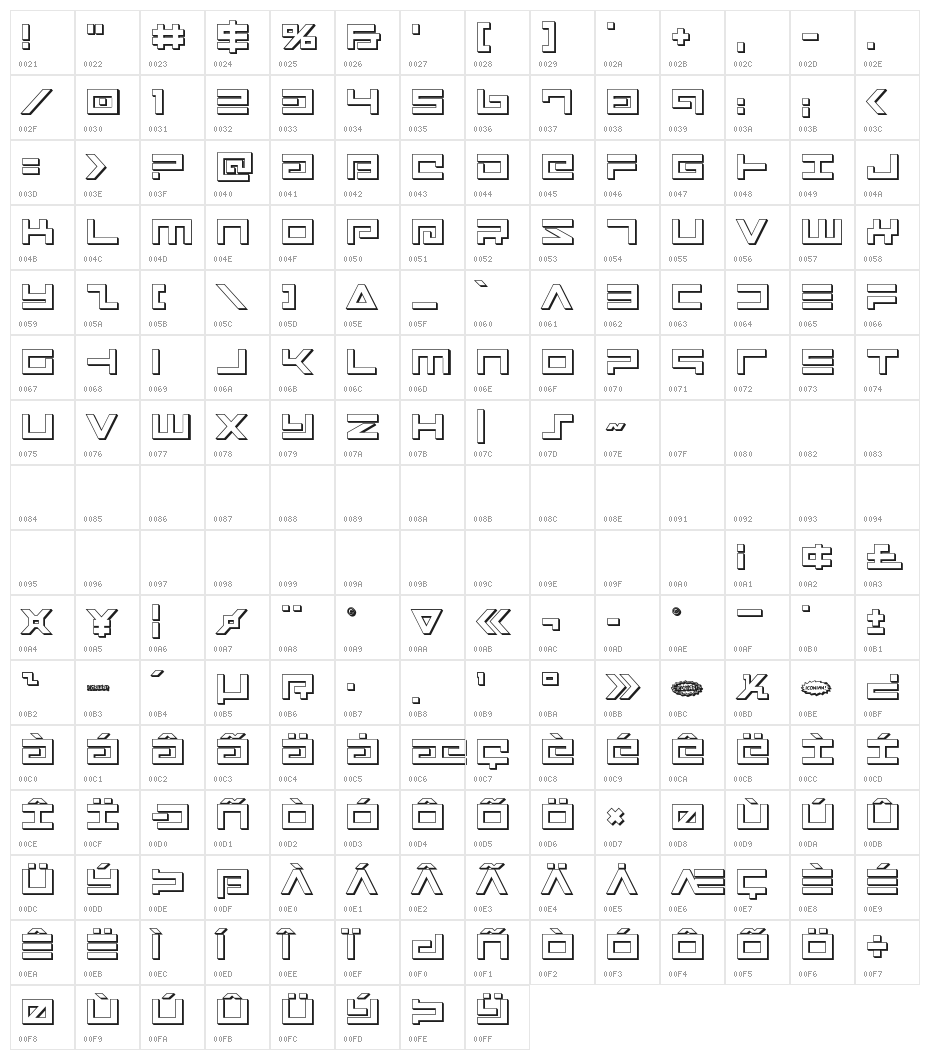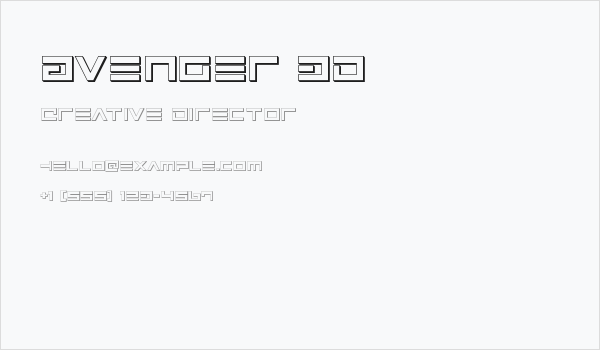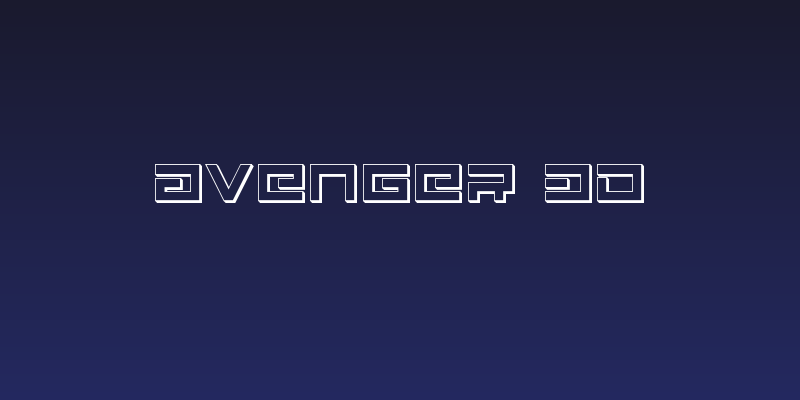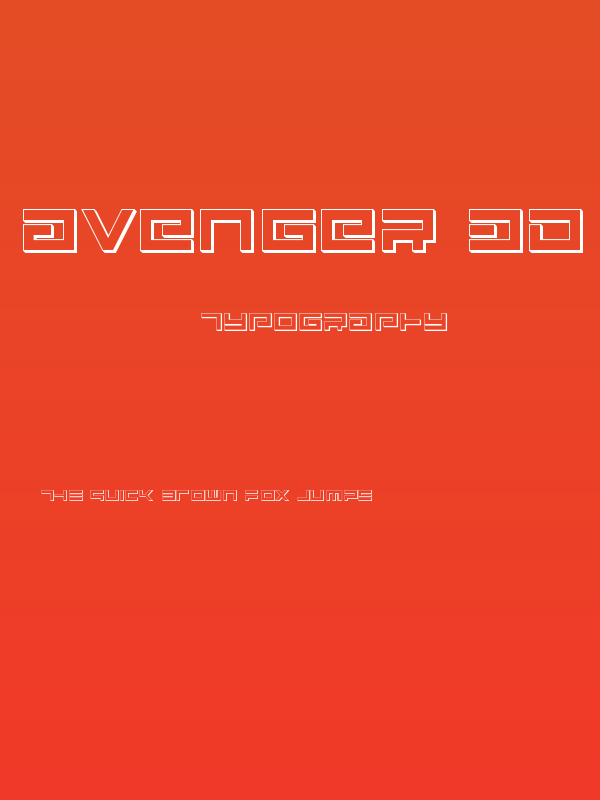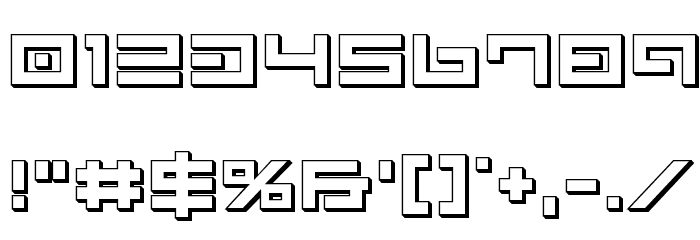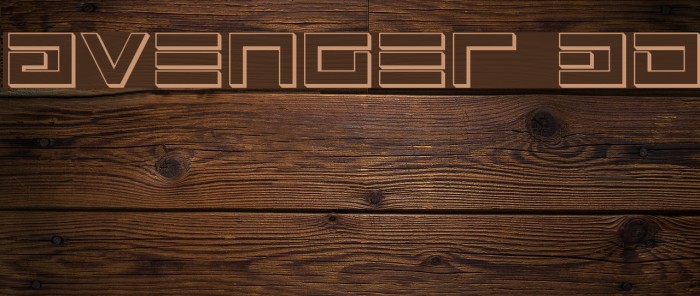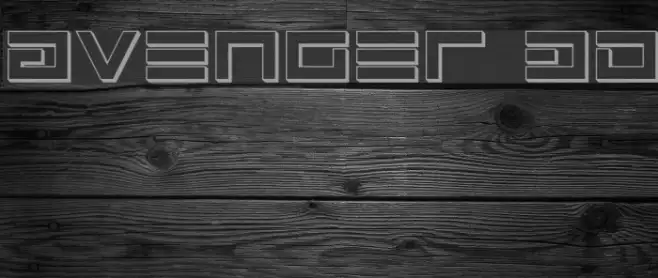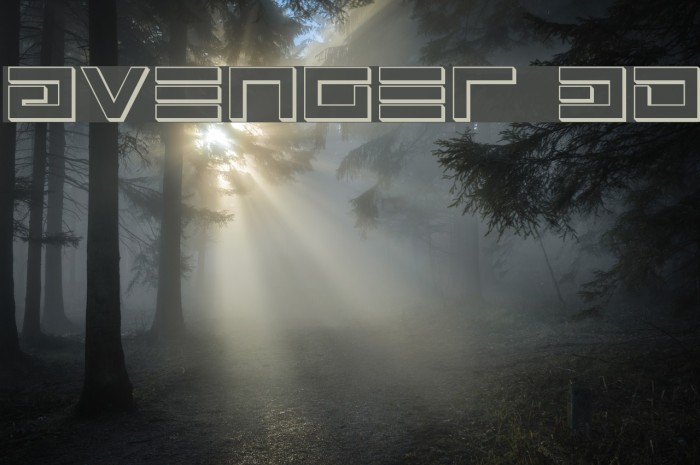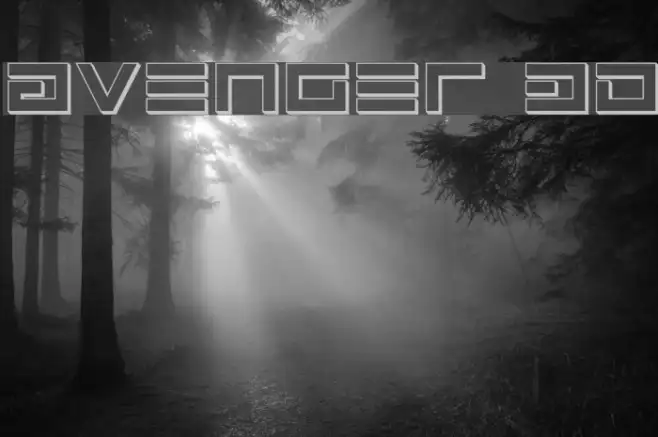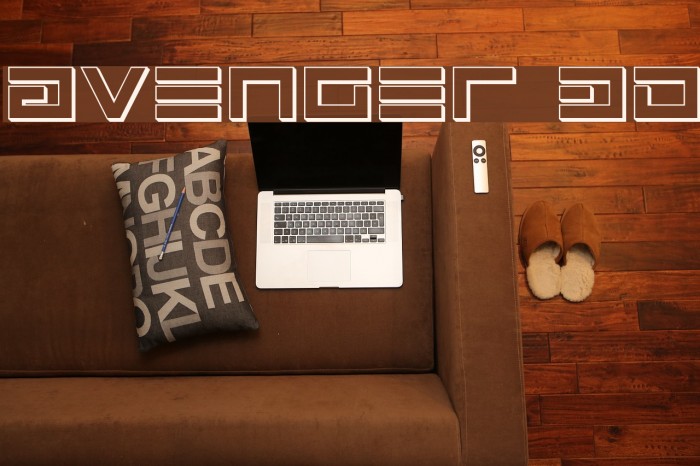
Avenger 3D Font
Avenger 3D Description
This font features a bold, geometric design with a three-dimensional effect, characterized by its outlined structure and angular shapes. The uppercase and lowercase letters maintain a consistent style, with sharp edges and a futuristic aesthetic. The numbers and special characters follow the same design principles, ensuring uniformity across all glyphs. The font's unique style makes it stand out, offering a modern and tech-inspired look that is both eye-catching and versatile.
| Overall Style | Futuristic |
| Use Case | Logos, Headlines, Posters |
| Proposed Projects | Ideal for sci-fi movie posters, video game titles, tech company logos, and futuristic-themed event invitations. |